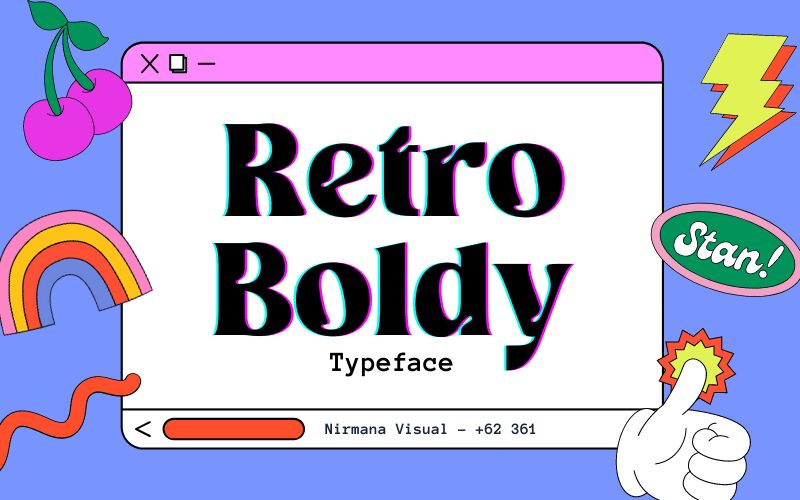
Looking to add a touch of nostalgia to your designs? Look no further than Retro Boldy, the latest display font from Nirmana Visual. This bold, retro-inspired typeface is perfect for a variety of projects, from vintage logos and signage to retro-themed packaging and advertisements. With its chunky lettering and eye-catching curves, Retro Boldy is sure to make a statement wherever it's used. Whether you're creating a throwback design or simply looking to add some personality to your work, this semi-bold font is sure to impress. So why wait? Download Retro Boldy today and start designing your own retro-inspired masterpieces!
Retro Boldy by Nirmana Visual,
Retro Boldy